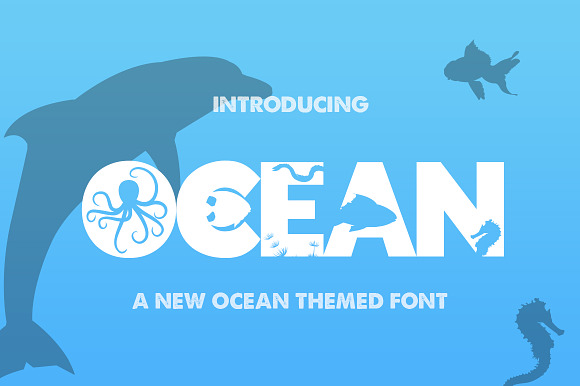
The Ocean Font
Why The Ocean Font is worth a look
The Ocean Font by Salt & Pepper Designs fits naturally into Branding, posters, packaging, typography.